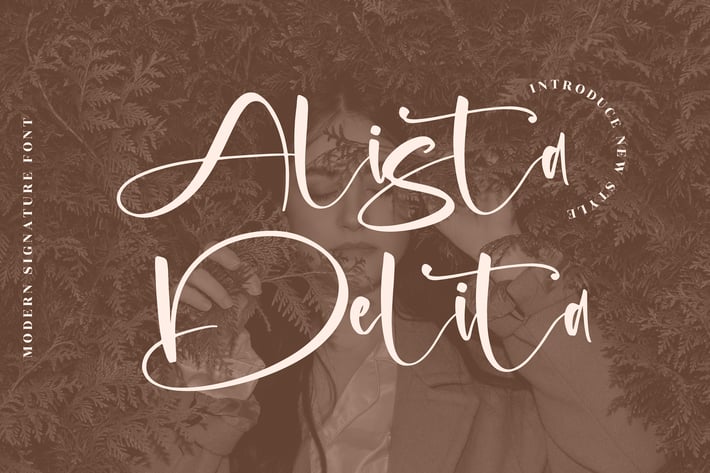
Alista Delita Modern Signature Font
Alista Delita is a modern signature-style script font that exudes elegance and sophistication. Its flowing strokes and natural handwriting texture make it ideal for professional branding, personal design, and creative visual storytelling. This font combines classic charm with modern simplicity for a timeless impression.
Elegant signature script with smooth and organic lines
Modern handwritten style with natural ligatures
Great readability for both headlines and body text
Versatile for luxury, fashion, and creative projects
Includes multilingual characters
Personal branding and photography logos
Wedding stationery and invitations
Editorial layouts and magazine covers
Social media templates and lifestyle designs
* Product packaging and label designs
Where modern charm meets handwritten grace — Alista Delita makes every word look like art.